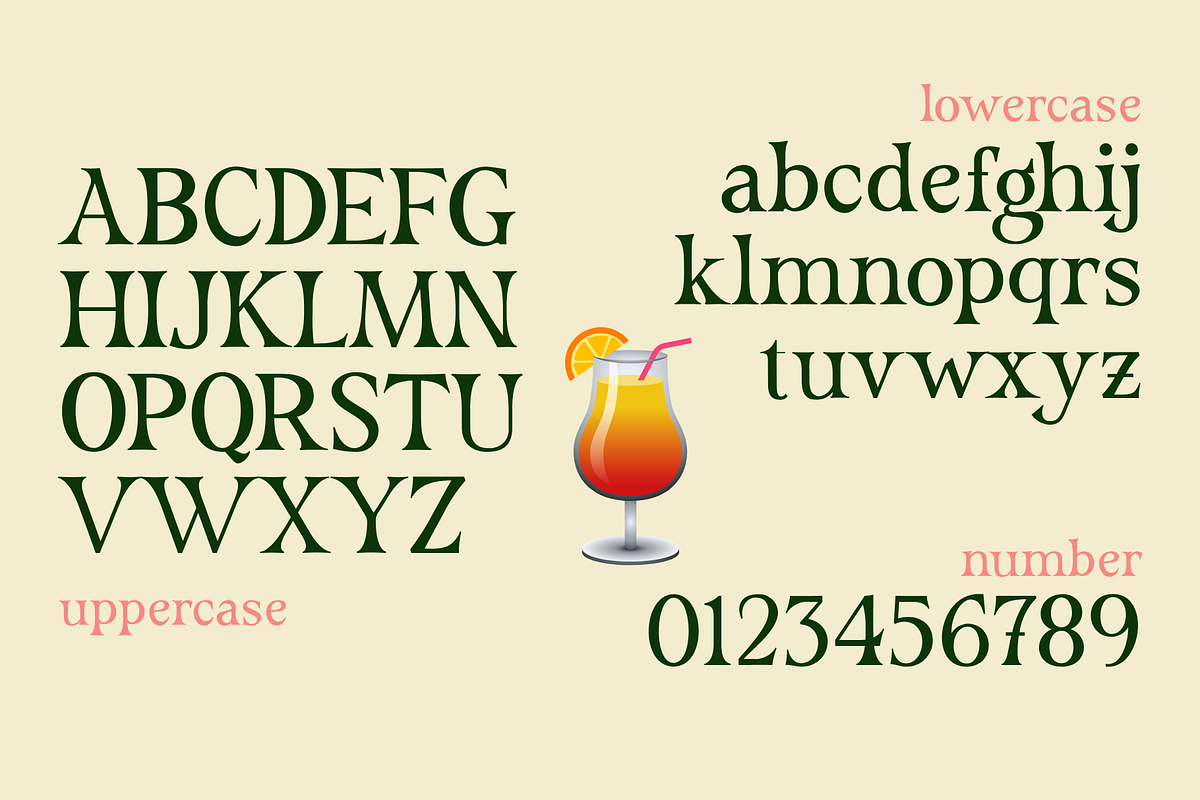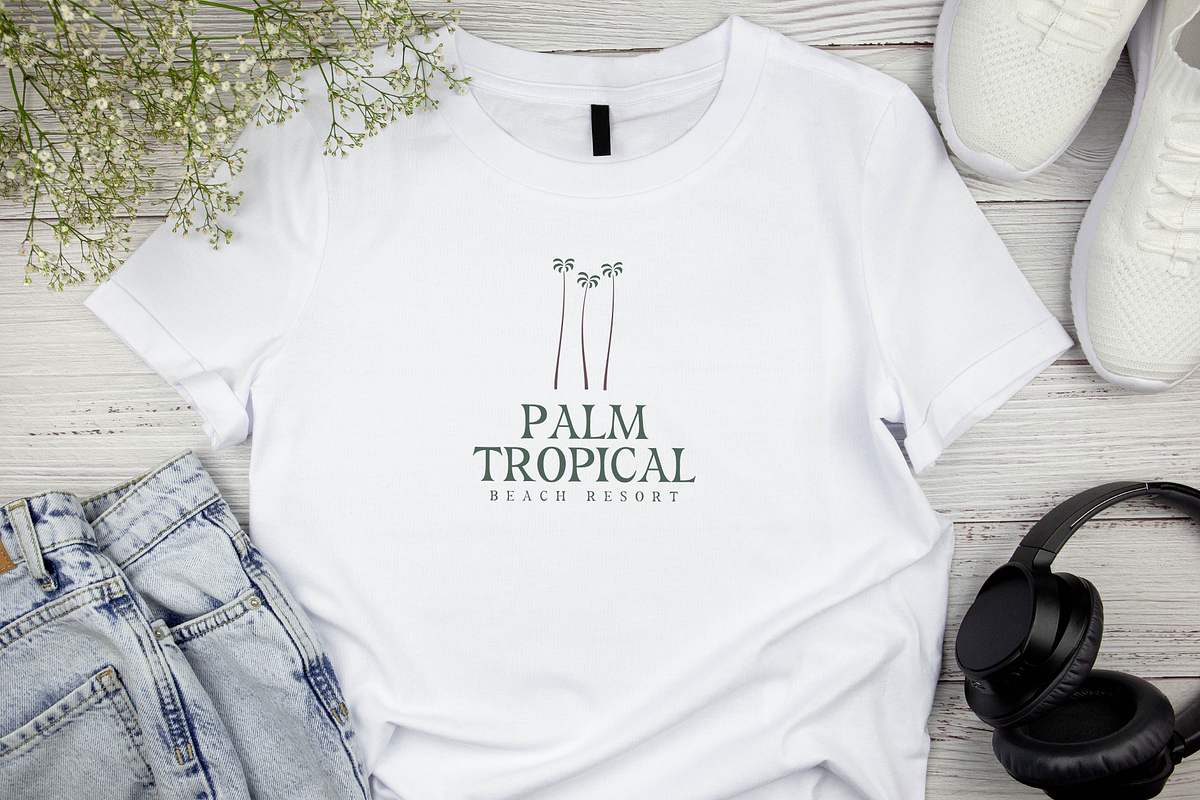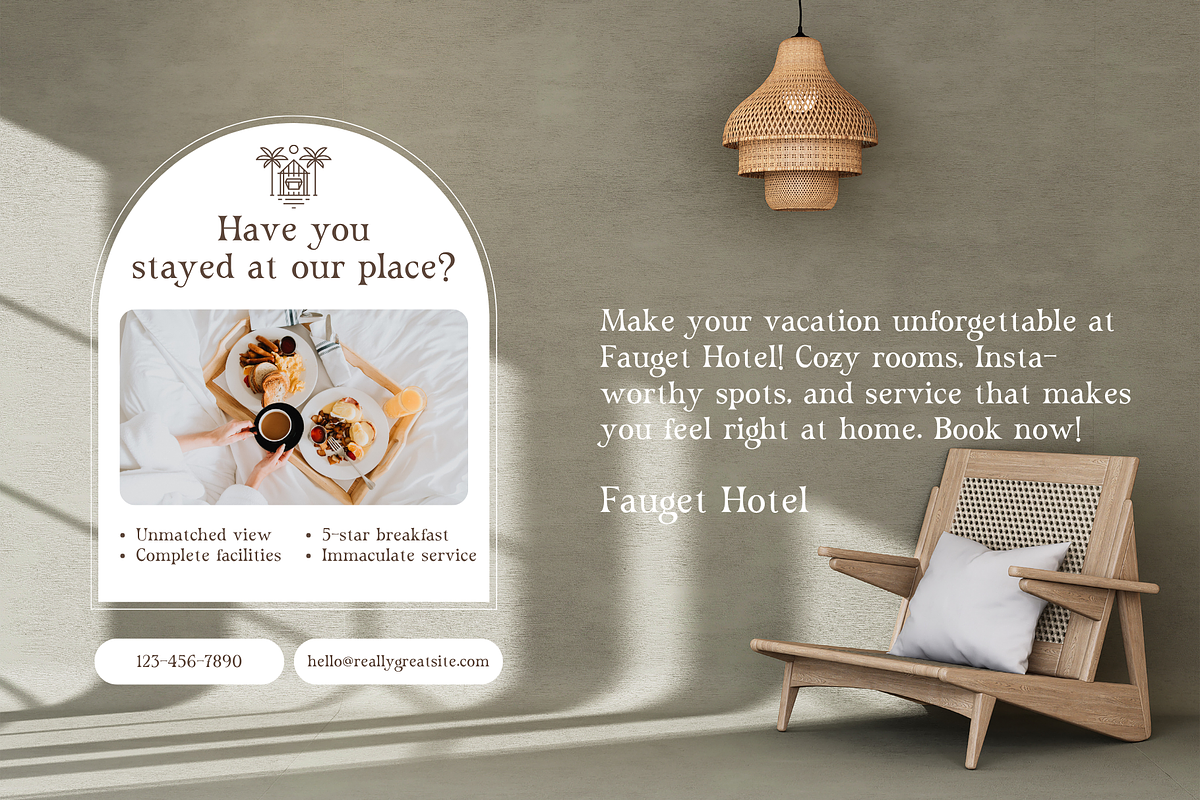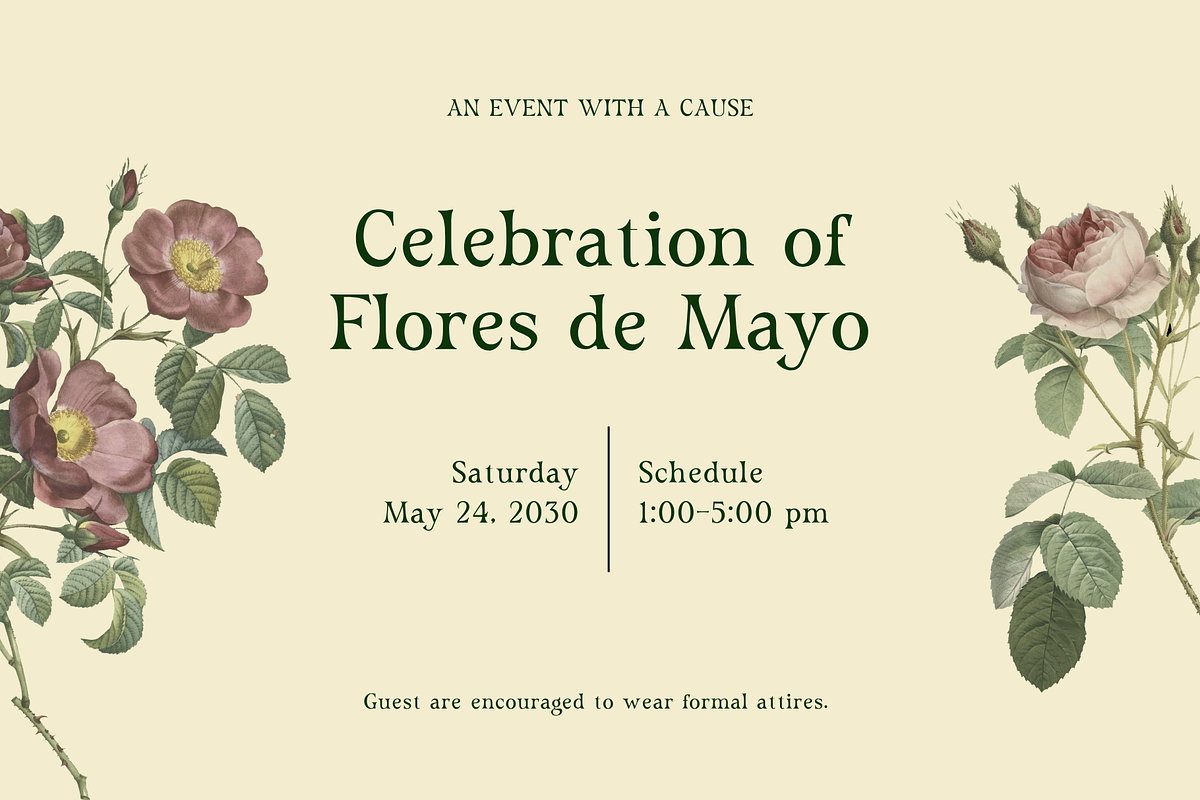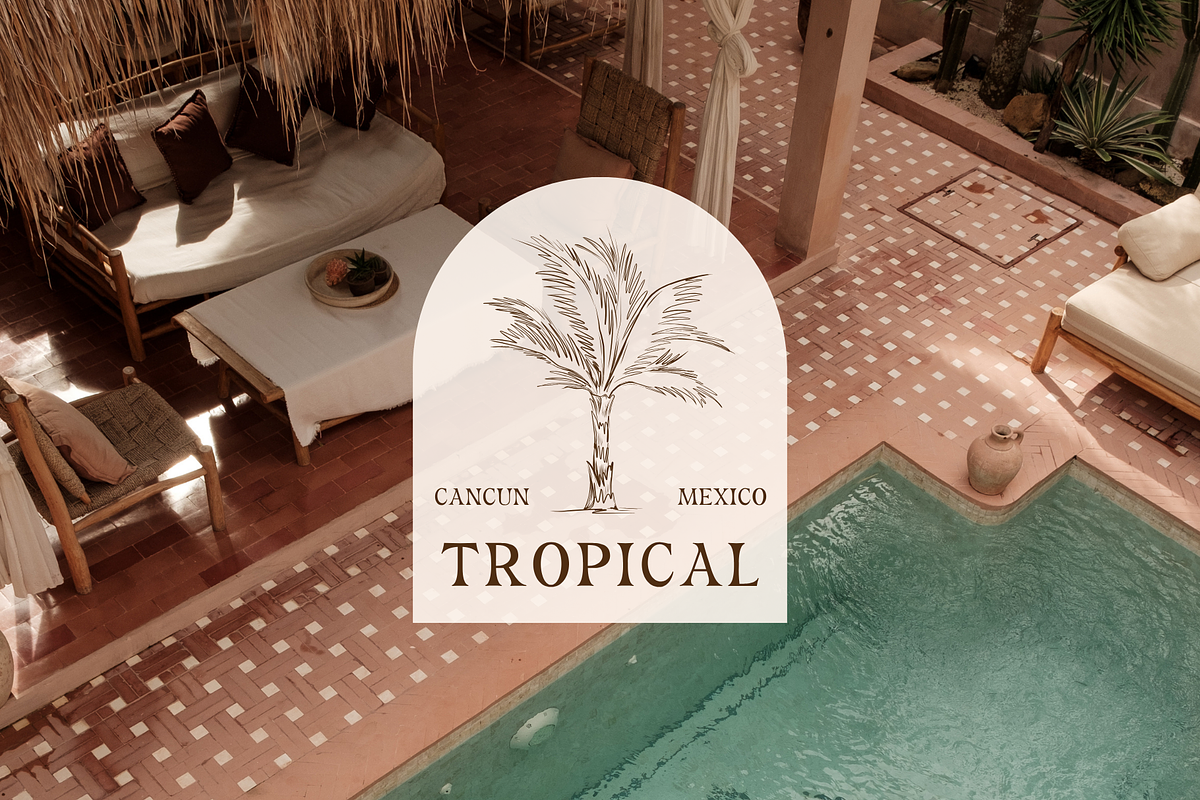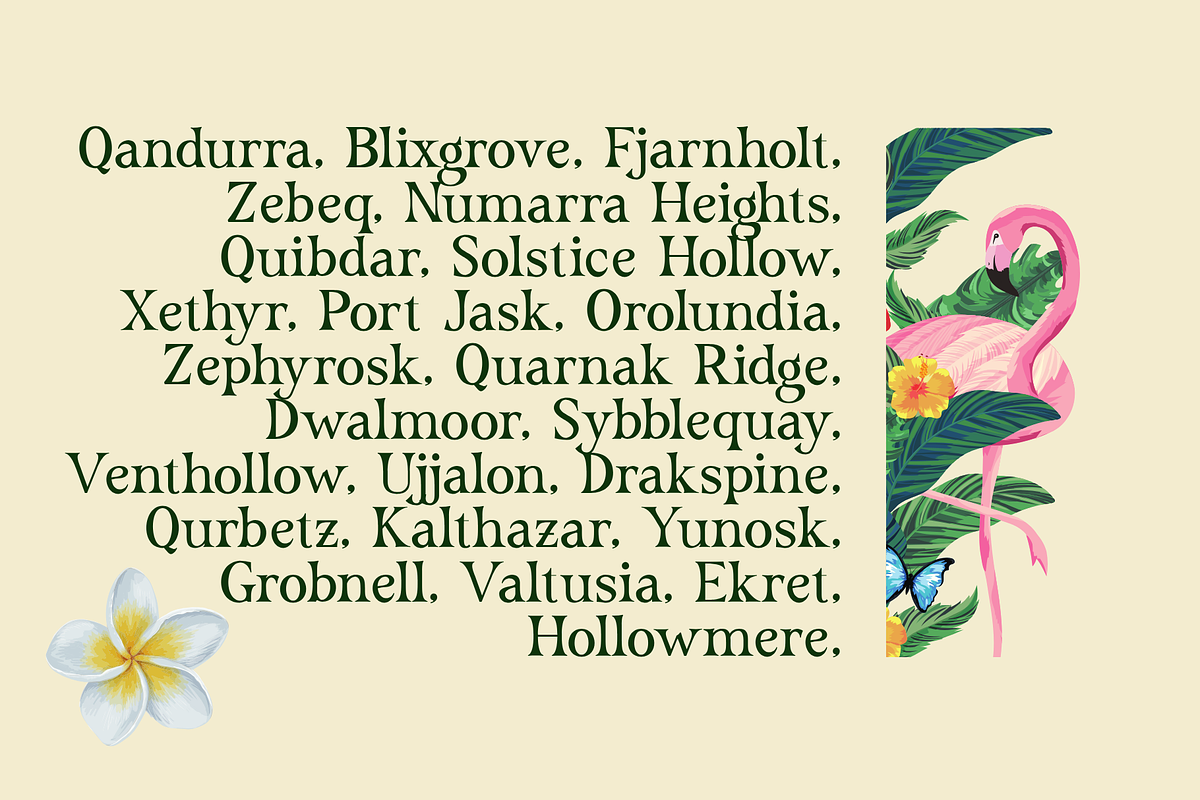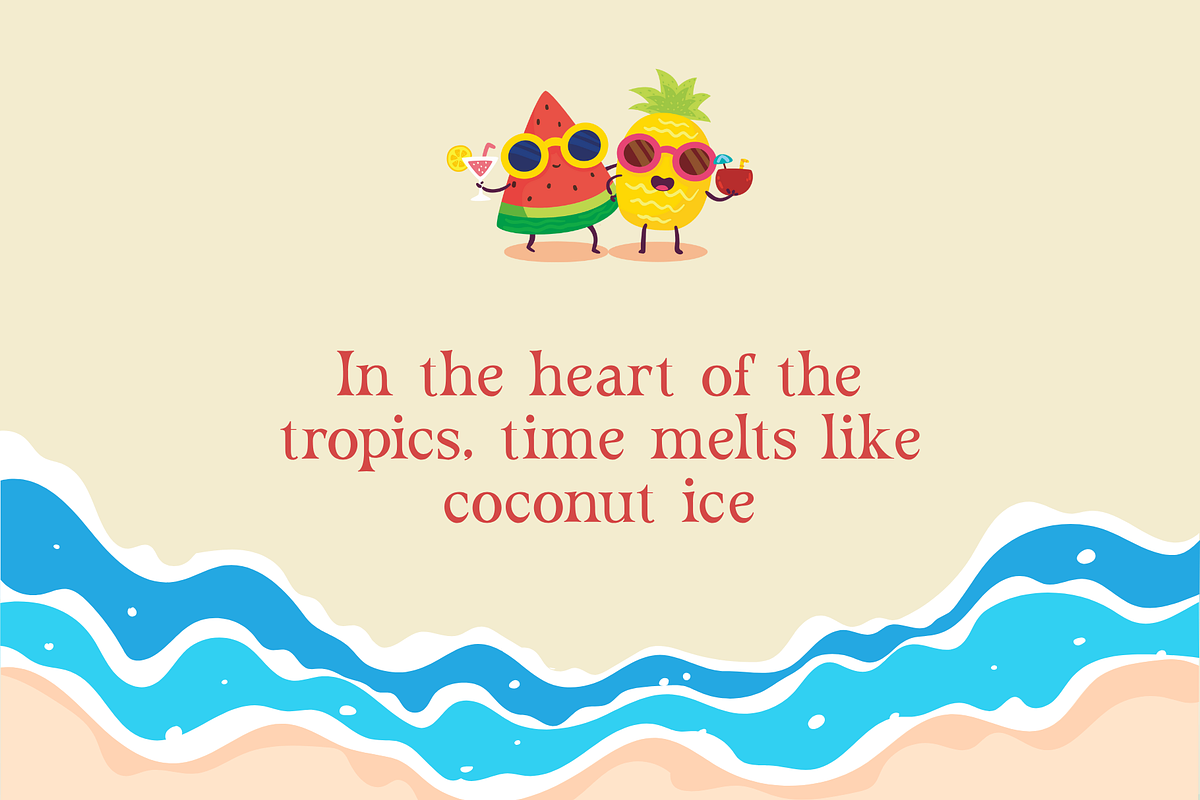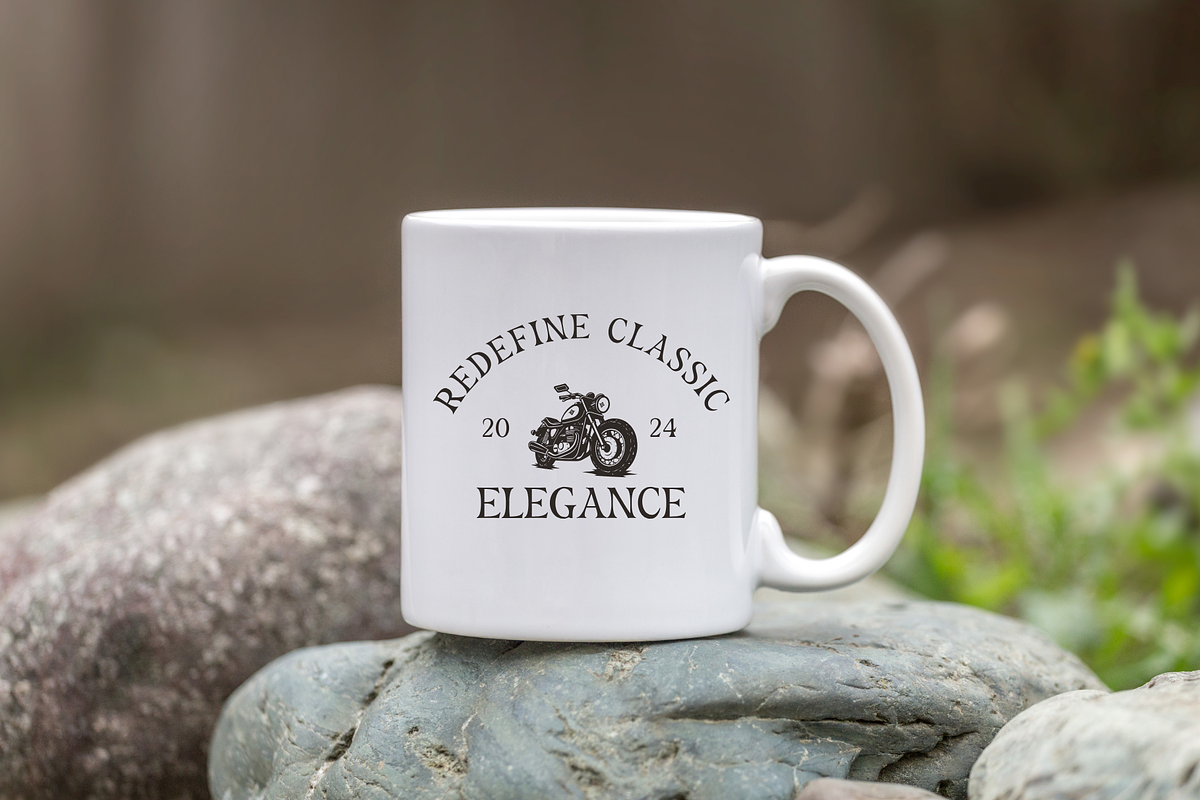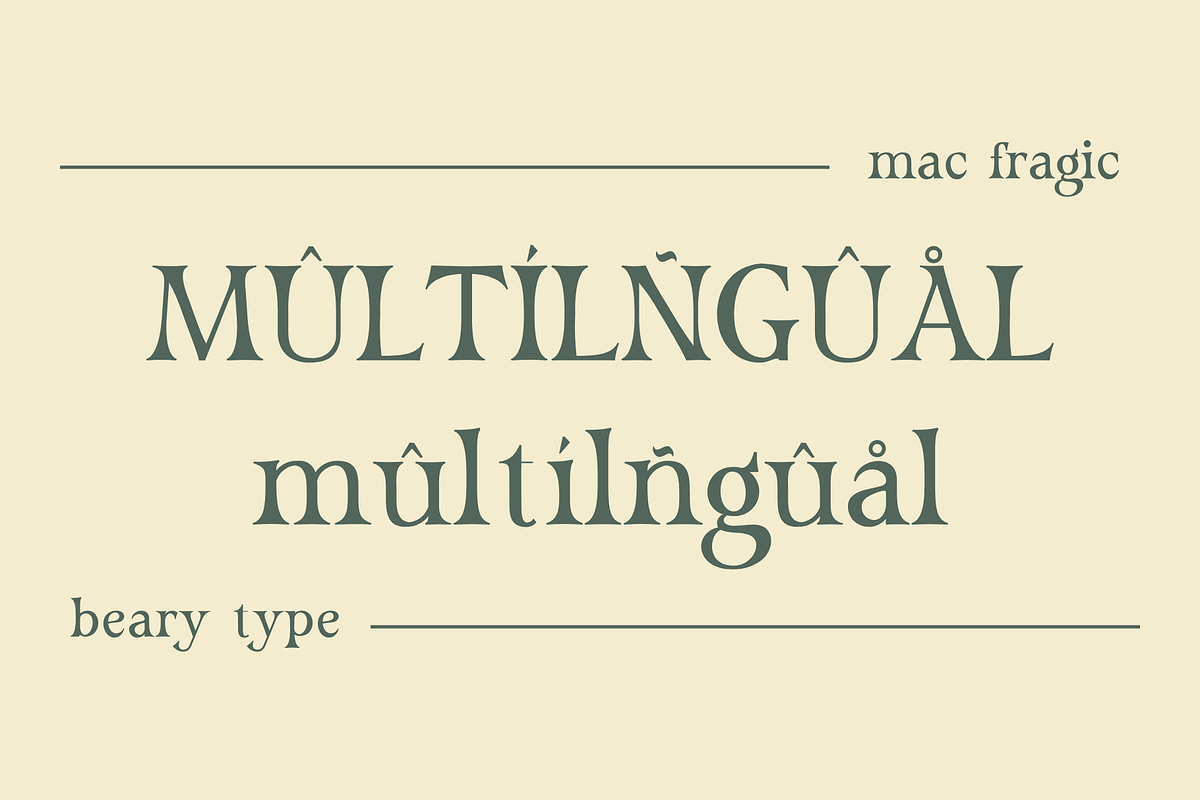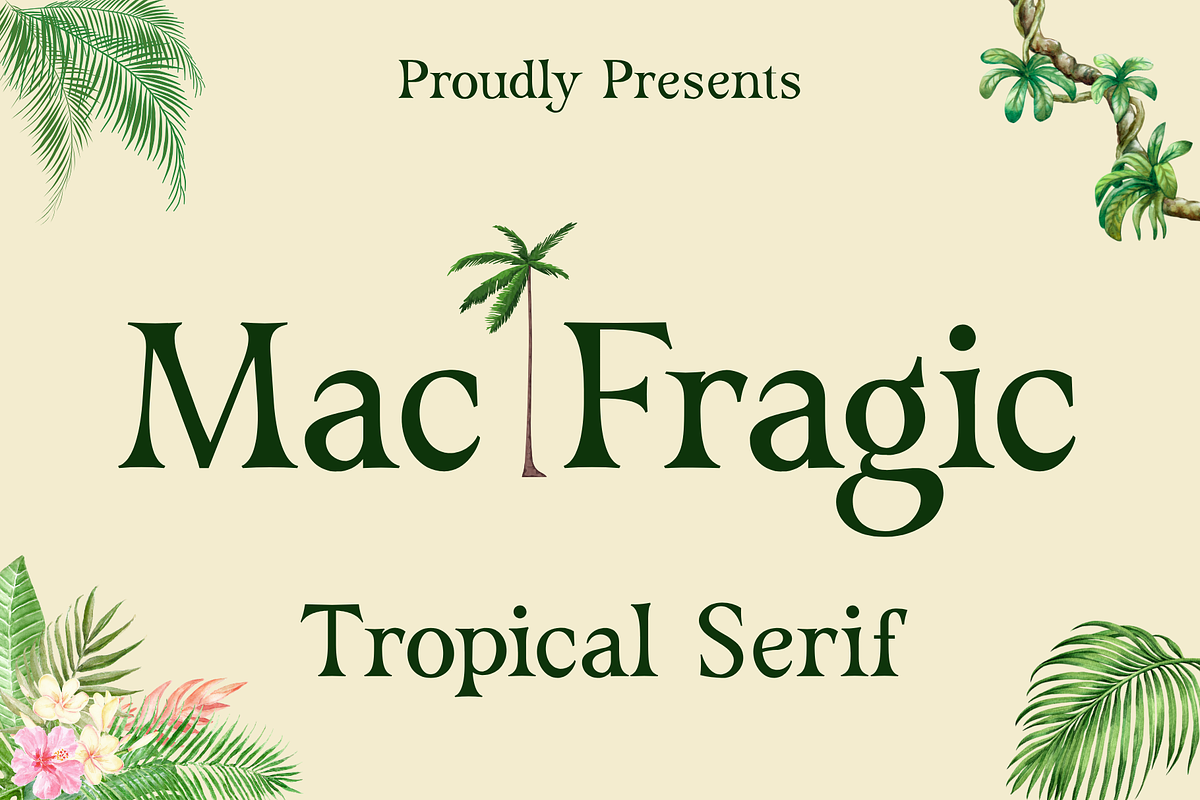
Mac Fragic - A Classic & Elegant Ser
Introducing Mac Fragic, a timeless and elegant serif font that brings a touch of classic sophistication to any design. Inspired by traditional typography, Mac Fragic combines clean, readable letterforms with a refined character, making it an incredibly versatile tool for all your creative projects.
Its balanced proportions and subtle details shine in both display sizes and body text, ensuring your message is delivered with clarity and style.
Sophisticated Branding & Logos: Create a luxurious, classy, and timeless brand identity.
Editorial & Magazine Design: Perfect for headlines, sub-headings, and pull quotes that need an elegant touch.
Wedding Invitations & Stationery: Lend a romantic and formal feel to wedding invitations, business cards, and more.
Website & Blog Headers: Make your site look more professional and charming.
Luxury Product Packaging: Enhance the perceived quality of your products with premium typography.
Quote Graphics for Social Media: Design beautiful and shareable quotes for Instagram, Pinterest, and other platforms.
Uppercase & Lowercase Characters
Accented Characters (Multilingual Support)
Classic Ligatures